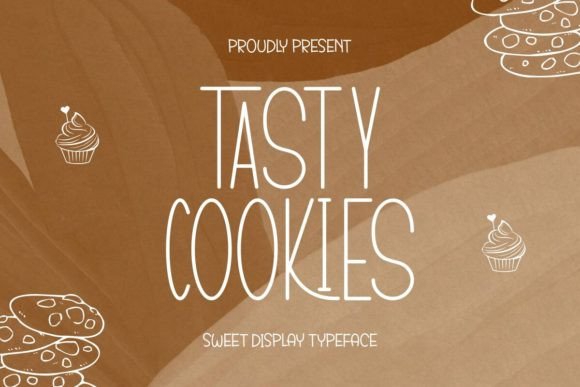
Introducing Tasty Cookies Font, a tantalizing display font that will add a sprinkle of sweetness to your creative projects. Designed by the creative minds at Masyafi Studio, this font is a visual treat, inspired by the delightful taste of freshly baked cookies.
With its playful line style, reminiscent of handwritten notes, Tasty Cookies Font exudes a warm and inviting charm. The beautiful curves and unique details make it perfect for adding a personal touch to various projects, ranging from cheerful crafts to meaningful quotes.
Unleash your imagination and explore the endless possibilities of Tasty Cookies Font. Create eye-catching stickers, labels, and typography that will leave a lasting impression. Its whimsical nature will add a touch of sweetness to your branding and social media posts, attracting attention and captivating audiences.
Whether you're designing book covers, posters, or logos, Tasty Cookies Font will elevate your creative vision. Let your imagination run wild and create projects that are as delicious as a freshly baked cookie.